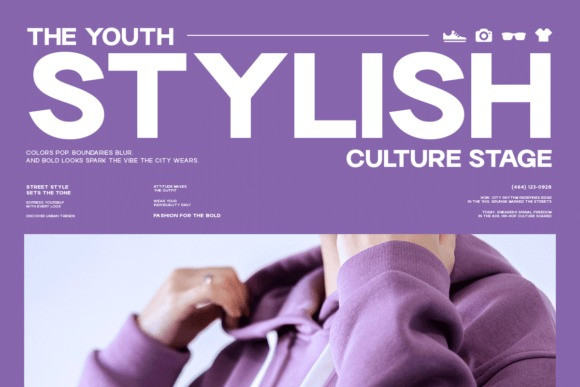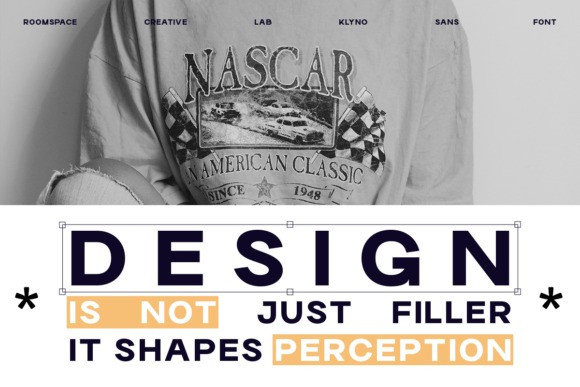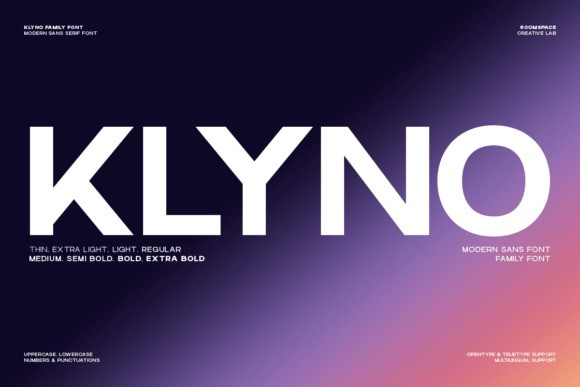
Klyno Font
Klyno Font is a modern geometric sans font family built for clarity, structure, and strong visual identity. Featuring 8 weights from Thin to Extra Bold, Klyno delivers a perfect balance of minimal aesthetics and powerful readability. Its clean geometry makes it ideal for branding systems, editorial layouts, UI/UX interfaces, and high-impact digital content.